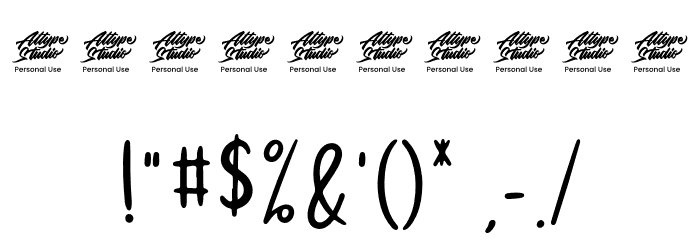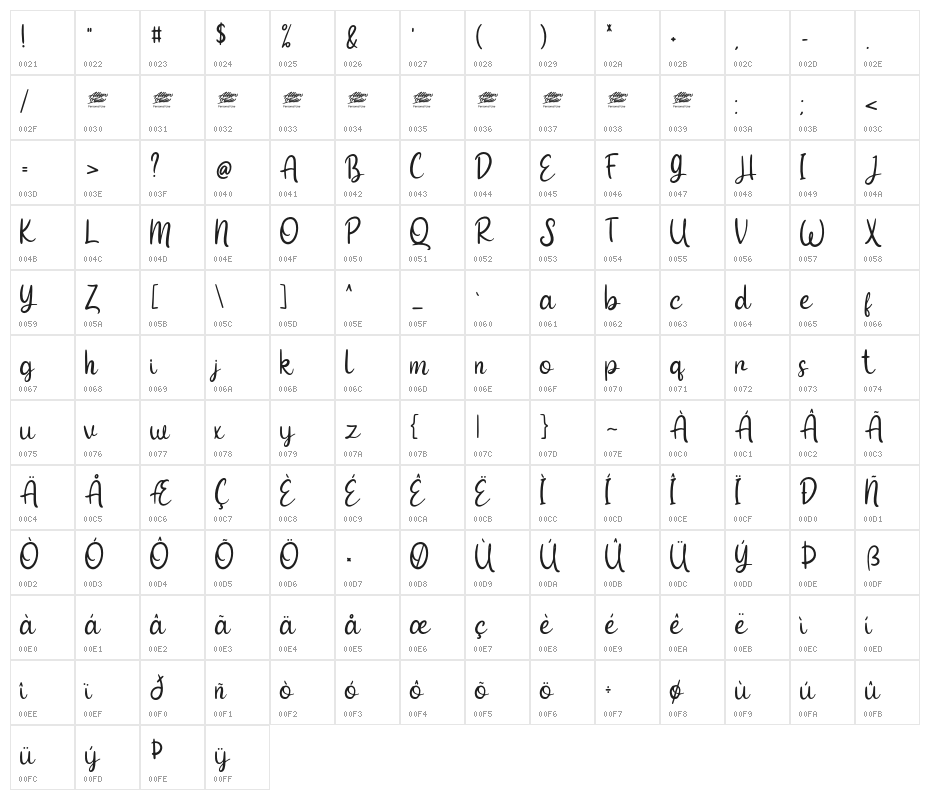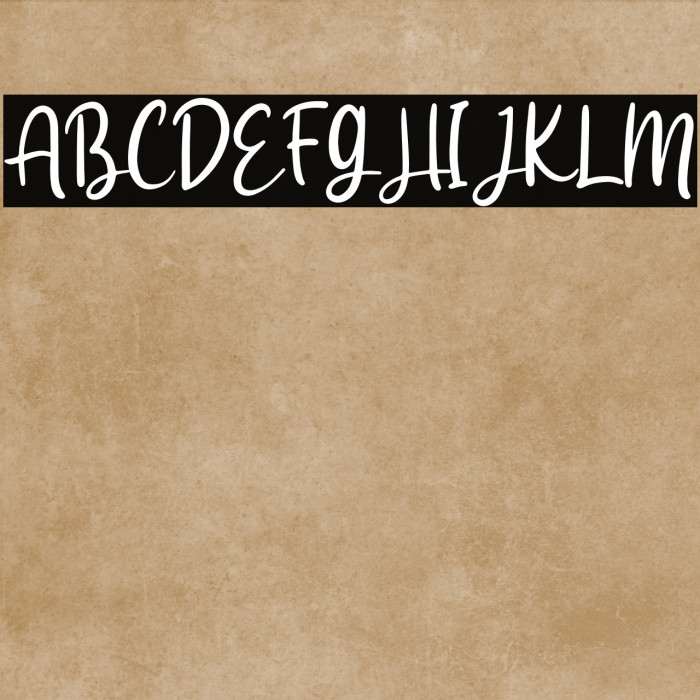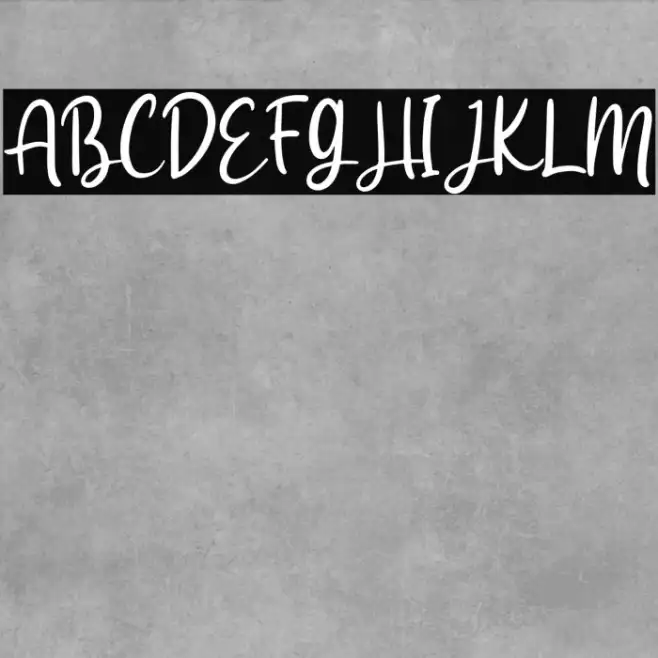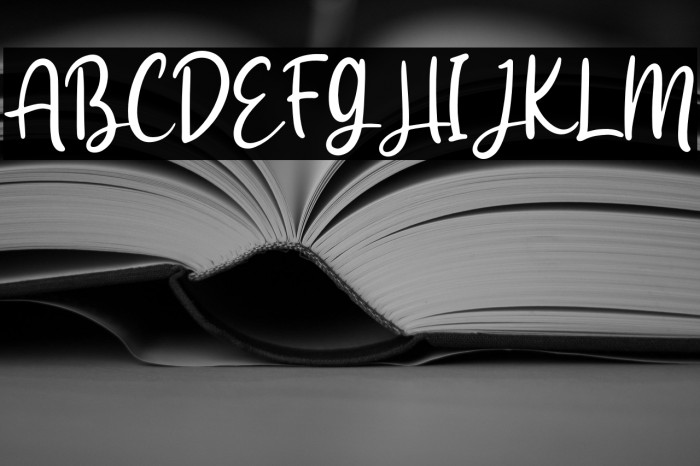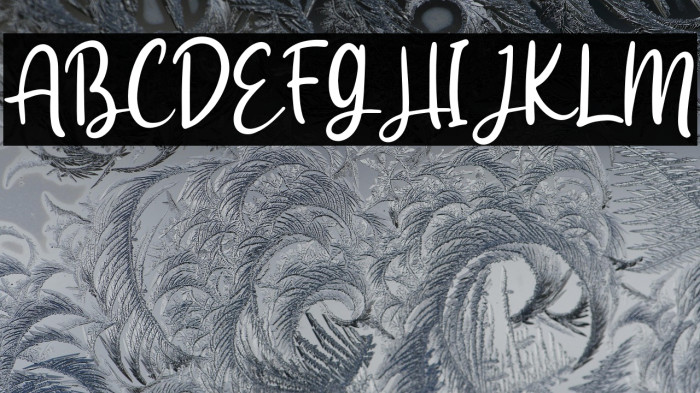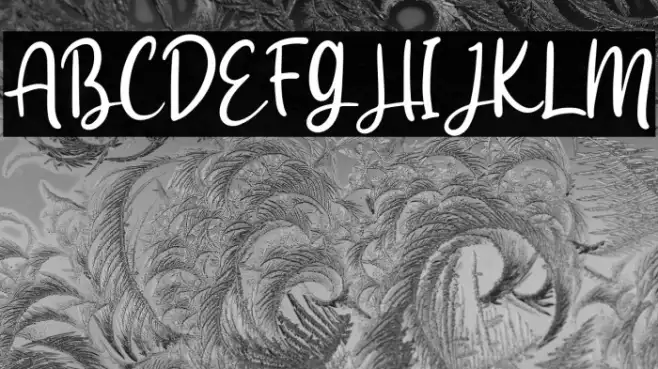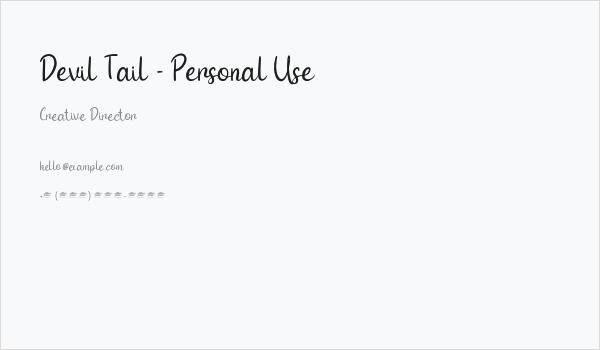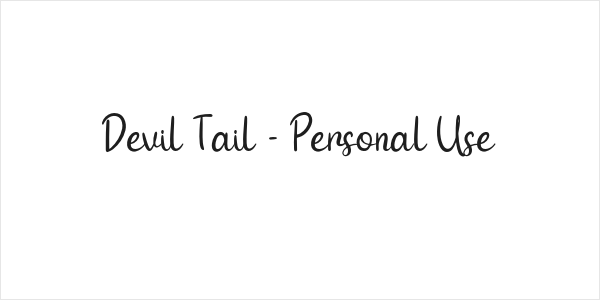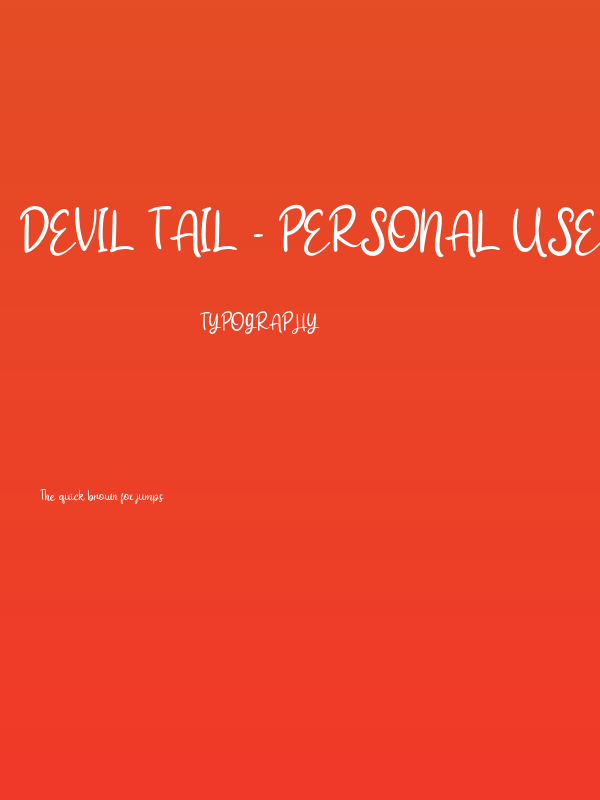
Devil Tail - Personal Use Font
Devil Tail - Personal Use Description
This font features a playful and whimsical script style with a handwritten appearance. The letters are fluid and connected, giving it a casual yet elegant look. The uppercase letters are bold and slightly larger than the lowercase, which are more delicate and rounded. The font includes a full set of uppercase and lowercase letters, numbers, and a variety of special characters. The strokes are consistent in width, providing a harmonious flow across the text. This font is ideal for projects that require a personal touch, such as invitations, greeting cards, or branding materials.
| Proposed Projects | Ideal for invitations, greeting cards, branding, and personal projects. |